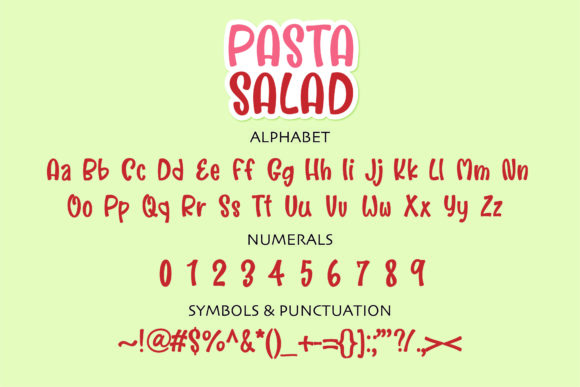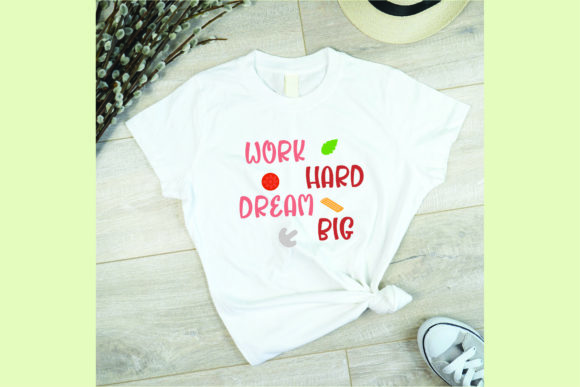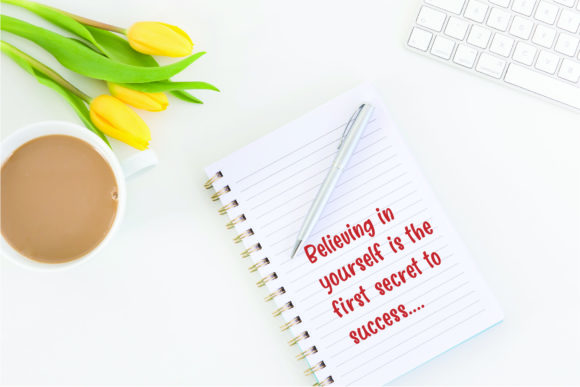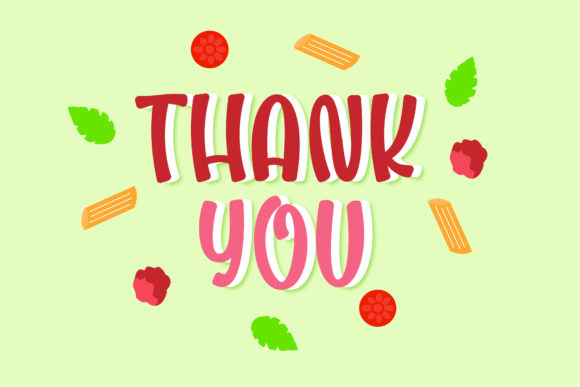
About Pasta Salad Font
Pasta Salad is a childish, easy-to-read handwritten font that conveys impeccable friendliness. Whether you’re using it for crafts, digital design, presentations, or making greeting cards, this font has the potential to become your favorite go-to font, no matter the occasion!